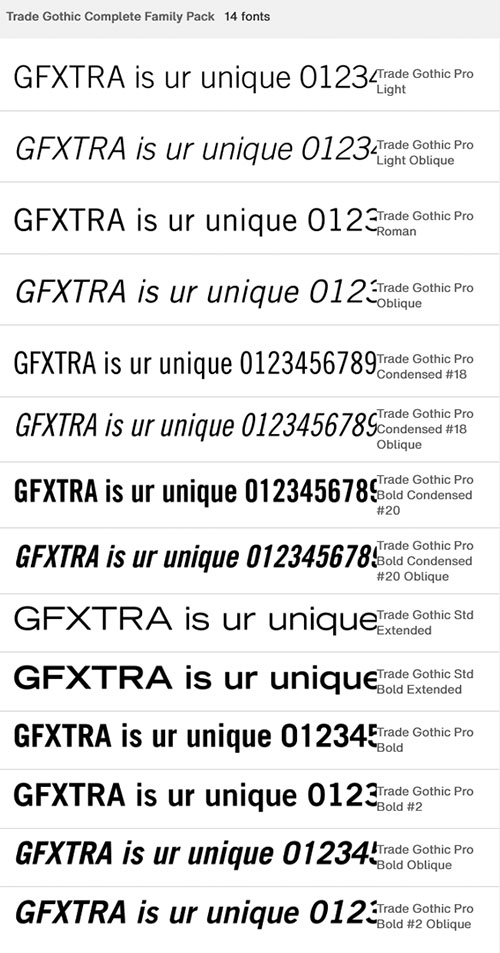
Trade Gothic - 14 Styles Font Family
- Trade Gothic was designed by Jackson Burke between 1948 and 1960 for Linotype. In the nineteenth-century grotesque style, like News Gothic, Trade Gothic has a large x-height. Trade Gothic, with its condensed faces, is a classic design for newspaper work, particularly for headlines and classified advertising. The condensed versions increase the versatility of the typeface, particularly for setting headlines and subheads.